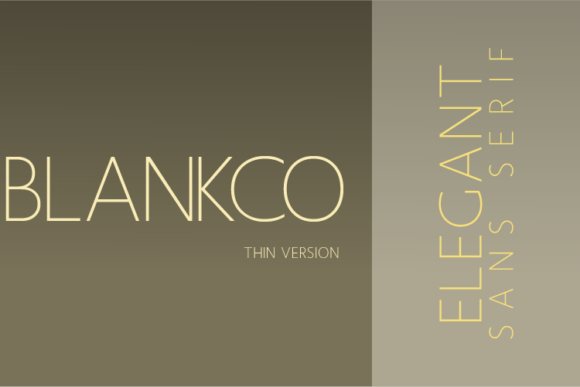
Introducing Blankco Thin Font, the epitome of modern elegance and sophistication in the world of typography. Created by the renowned designer Nan Design, this sans-serif font is a breath of fresh air, exuding a unique blend of timeless charm and contemporary appeal.
Drawing inspiration from iconic typefaces like Futura and Avant Garde, Blankco Thin Font seamlessly combines the best elements of these classics with its own creative twist. Its geometric letterforms, sharp edges, and small stroke contrast pay homage to the neo-grotesk fonts of the 20th Century, while still managing to carve out its own distinctive identity.
One of the standout features of Blankco Thin Font is its impressive x-height value, which gives each character a commanding presence on any medium. Whether you're designing a magazine layout, crafting eye-catching posters, revamping your branding, or building a stunning website, this font effortlessly adapts to suit your needs.
But it doesn't stop there. Blankco Thin Font is a versatile powerhouse, capable of elevating any project it graces. Its clean and minimalist aesthetic adds a touch of sophistication to any design, while its readability ensures that your message is effortlessly conveyed to your audience.
But what truly sets Blankco Thin Font apart is its ability to evoke emotion and captivate the senses. With every stroke, it ignites a sense of curiosity and wonder, leaving a lasting impression on anyone who encounters it. Its sheer elegance appeals to the discerning eye, while its modern twist adds a dash of excitement and freshness.
Don't settle for ordinary fonts that fade into the background. Let Blankco Thin Font become the driving force behind your creative endeavors, allowing you to stand out from the crowd and leave an indelible mark on the world. Embrace the power of this remarkable typeface and unlock endless possibilities for your designs.